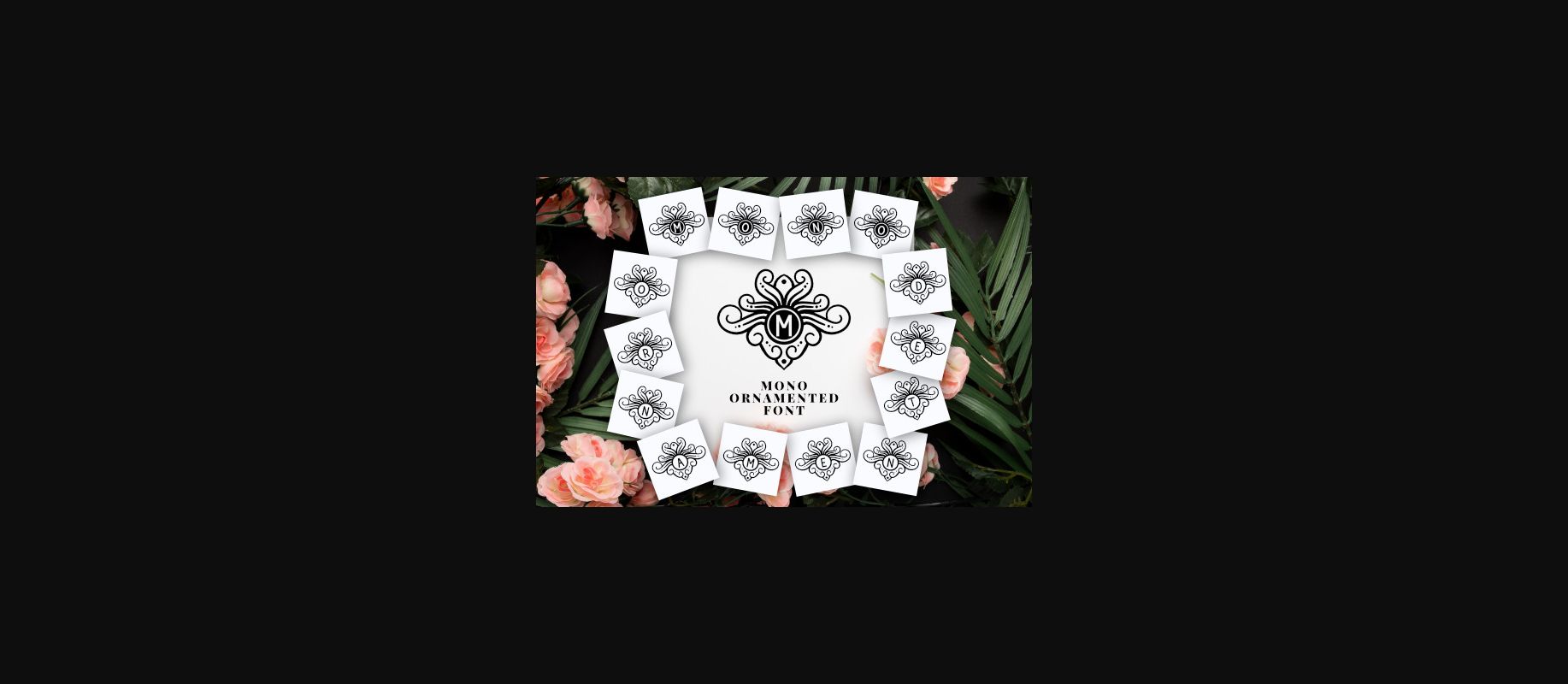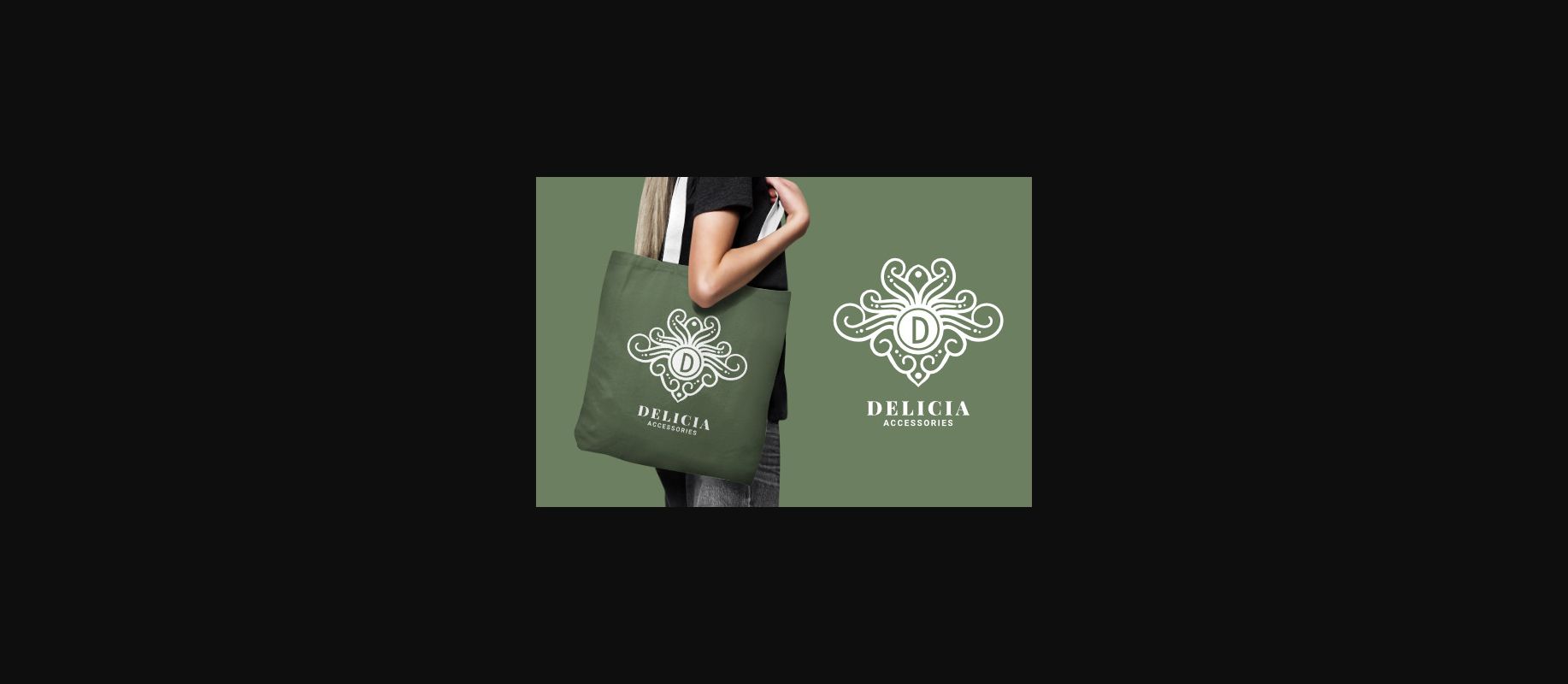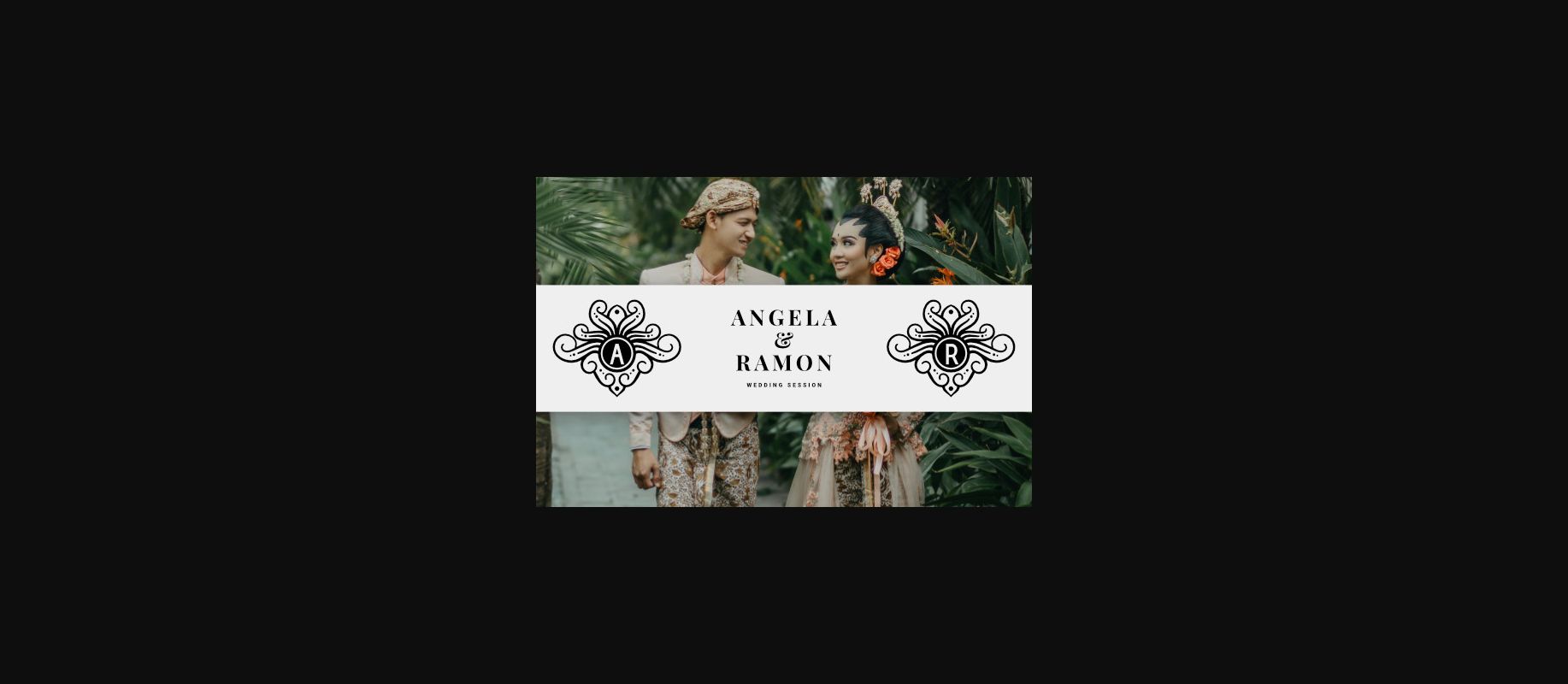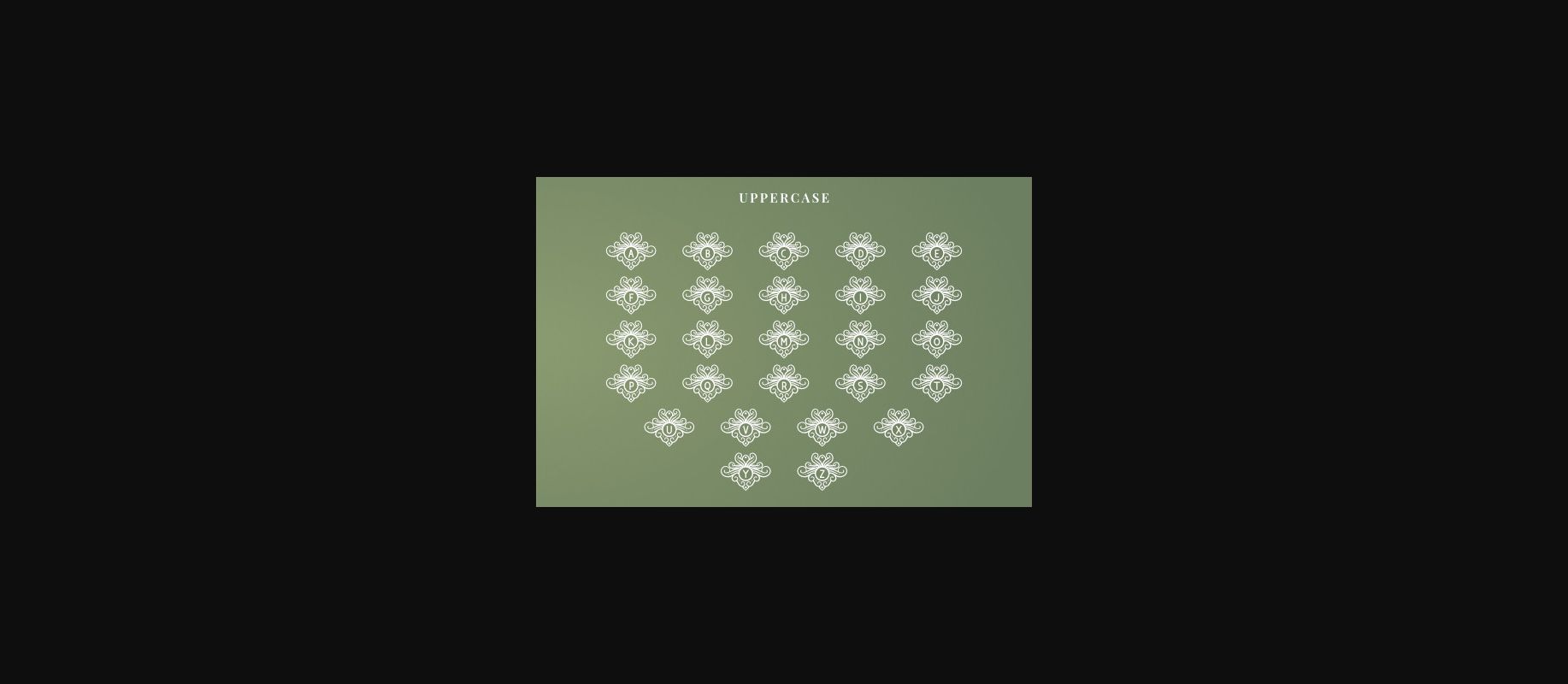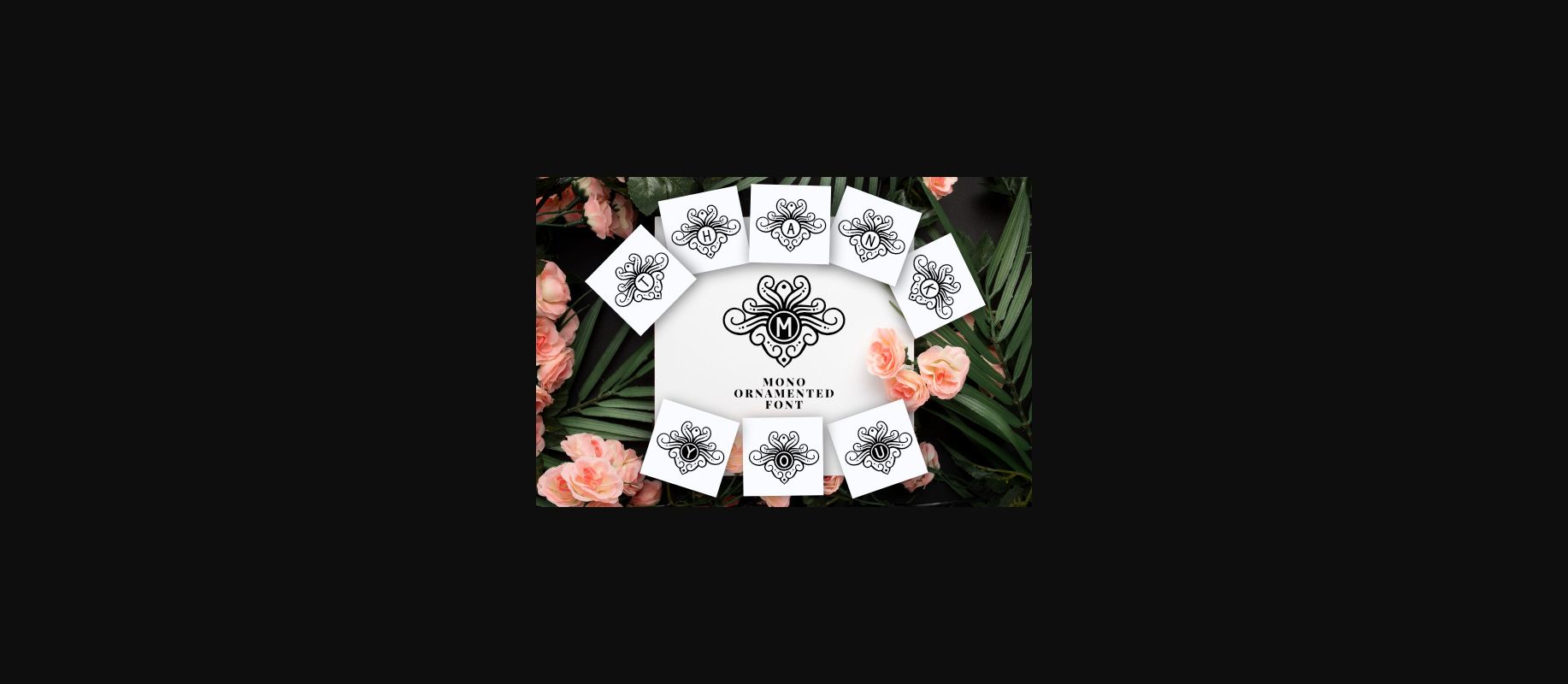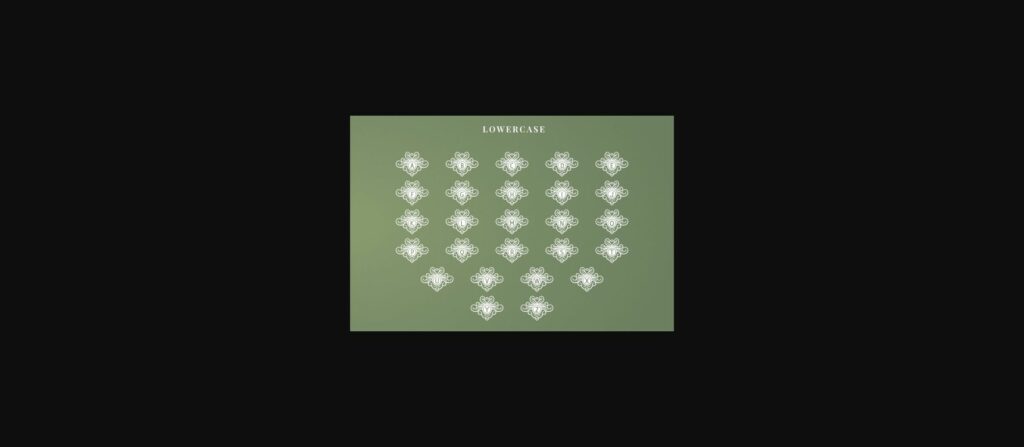
About Mono Ornamented Font
Mono Ornamented is a cool and unique decorative font. This creative font can work for a variety of personalized designs. Have fun with this beautiful font and explore its endless variations.